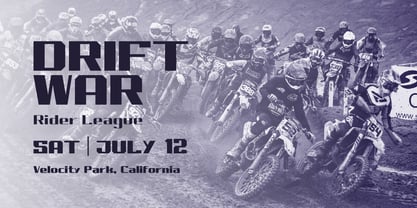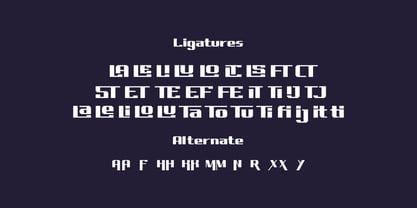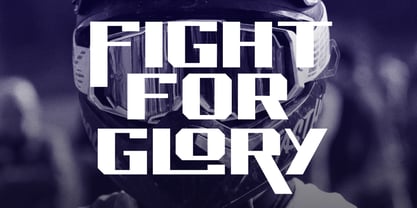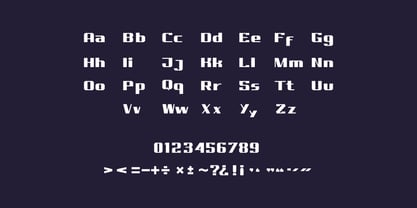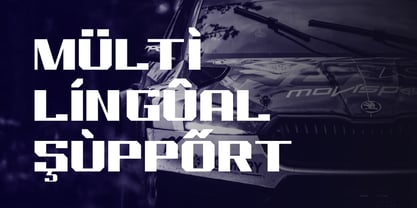
Squarant
by Yohanes Oktav
The Squarant Font Family was designed by Yohanes Oktavianus Aang and published by Yohanes Oktav. Squarant contains 3 styles and family package options. More about this family
Squarant is a powerful bold display font characterized by clean geometric squares and sharp angular details, providing instant impact and a modern edge to any headline or large-scale design. Its confident uppercase forms, thick strokes, and precise proportions create a striking presence that commands attention while ensuring perfect legibility at any size. Designed for maximum versatility, Squarant excels in various creative projects, including branding and logotypes, posters, packaging, editorial headlines, apparel graphics, digital banners, social media assets, and signage. The strong geometric foundation imparts a contemporary, tech-savvy feel, while the subtle dynamic cuts add energy and movement, making it suitable for corporate identities, fashion editorials, gaming visuals, music artwork, or architectural presentations. With extended Latin language support, numerals, punctuation, and refined kerning, Squarant is ready for professional use worldwide. Available in multiple weights for hierarchy and layering, this bold geometric sans-serif is the ideal choice for typography that is clean, contemporary, and undeniably powerful. Elevate your next project with Squarant, where geometry meets bold expression.
Designers: Yohanes Oktavianus Aang
Foundry: Yohanes Oktav